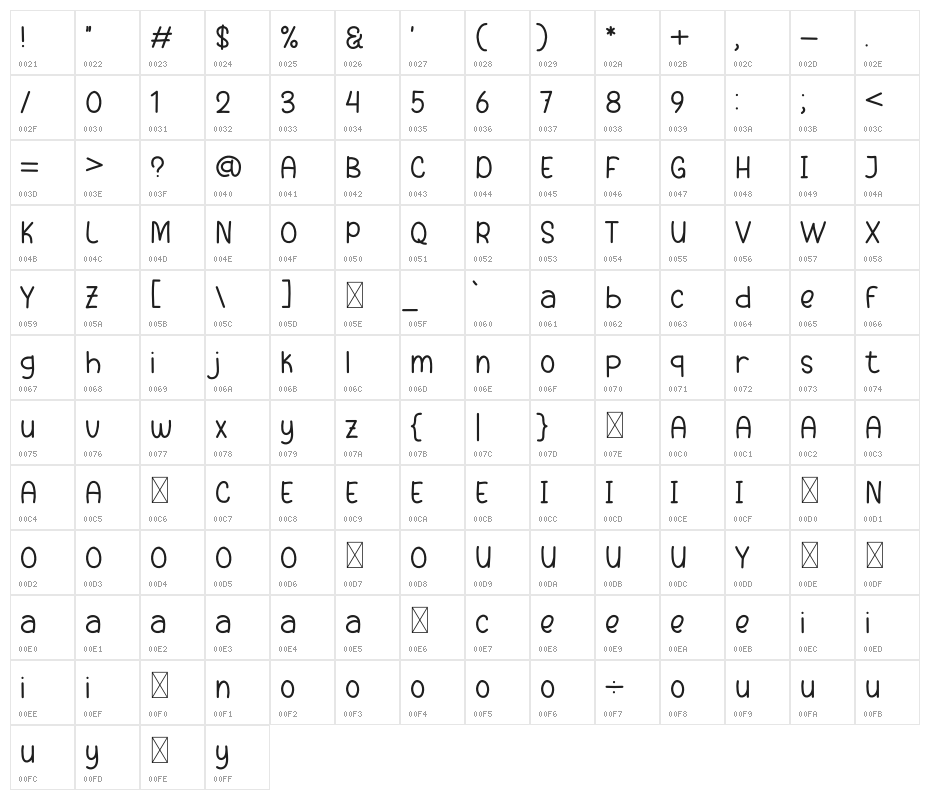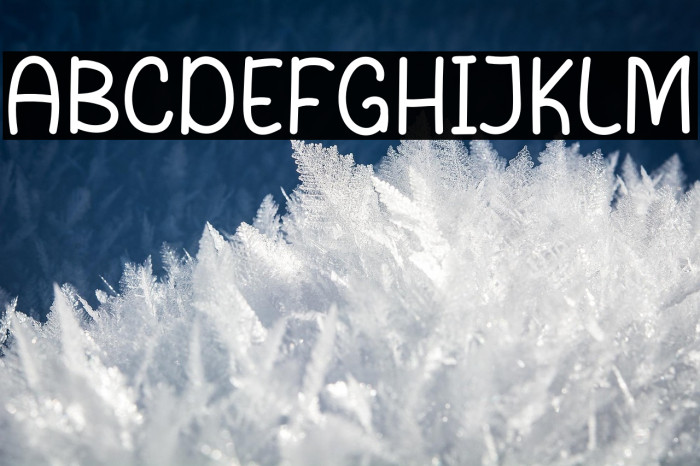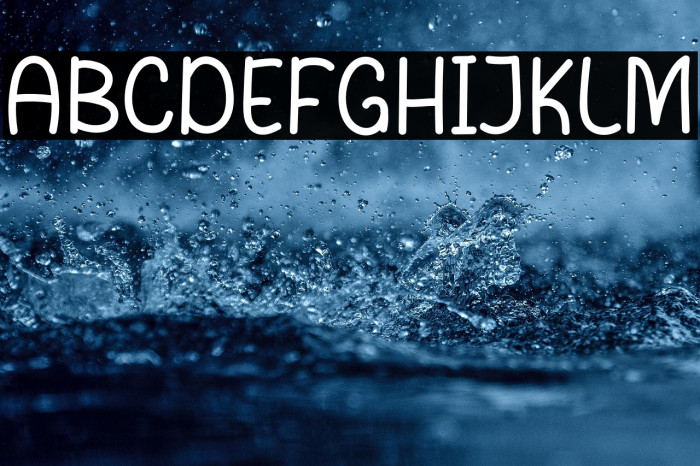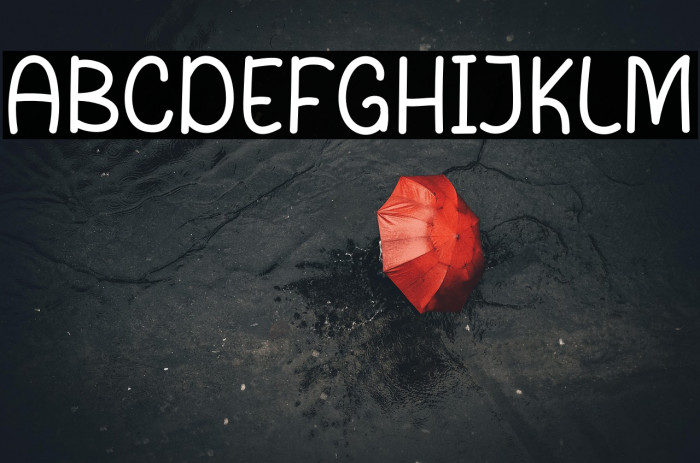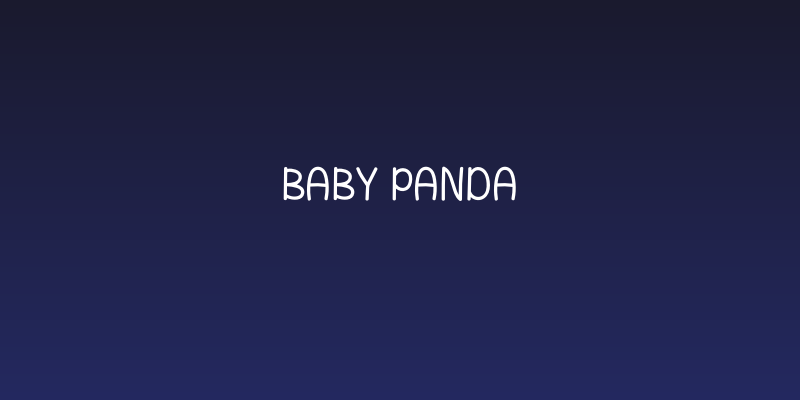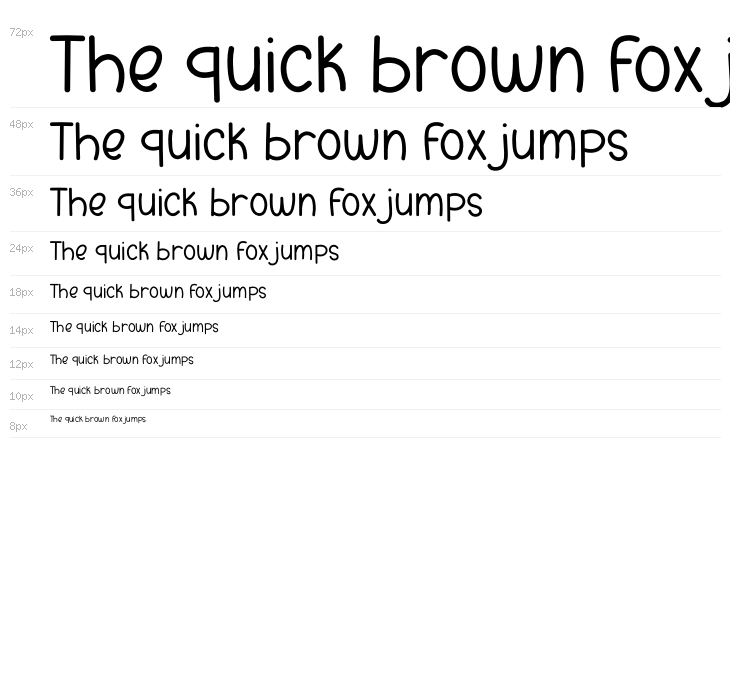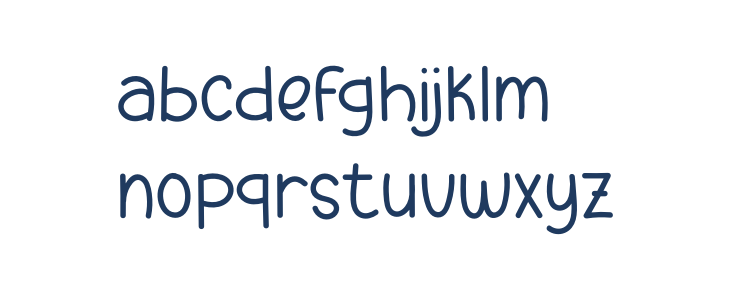
Baby Panda Font
Baby Panda Description
This playful and whimsical font features rounded, smooth edges and a friendly appearance. The characters are evenly spaced with a consistent stroke width, giving it a clean and approachable look. The uppercase and lowercase letters maintain a uniform style, with slight variations that add charm and personality. The numbers and special characters are designed to match the overall aesthetic, making it versatile for various uses. Its simplicity and readability make it suitable for children's books, playful branding, and casual designs. The font's style is reminiscent of handwriting, adding a personal touch to any project.
| Use Case | Headlines, Logos, Casual text |
| Proposed Projects | Ideal for children's books, playful branding, casual invitations, and educational materials. |